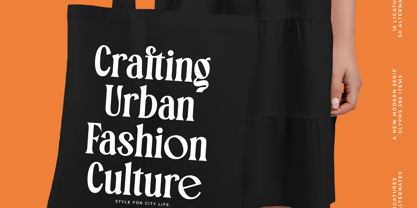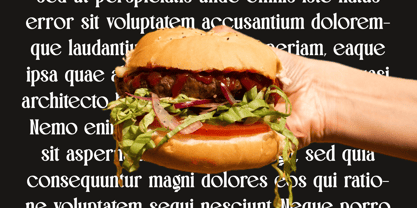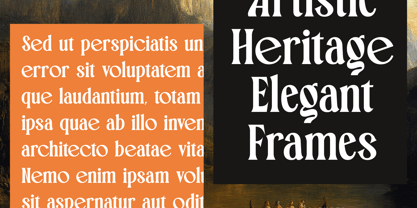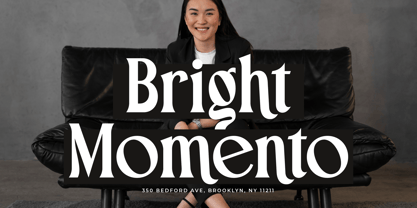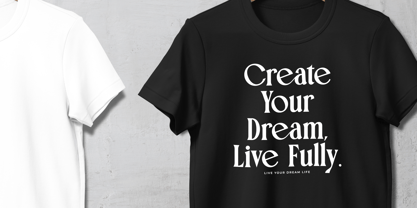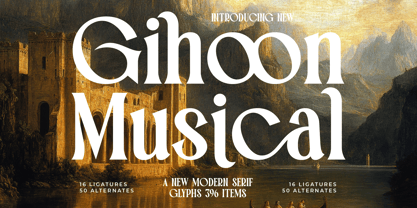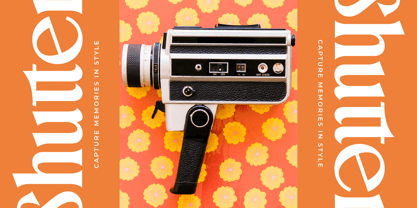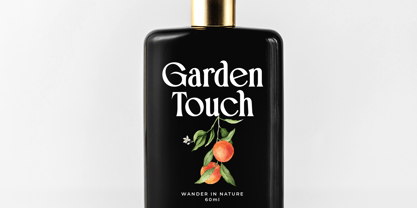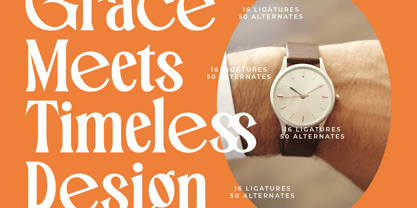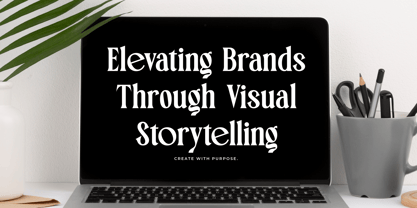
Gihoon Musical
by Timelesstype Studio
The Gihoon Musical Font Family was designed by Heru Utama Putra and published by Timelesstype Studio. Gihoon Musical contains 2 styles and family package options. More about this family
Gihoon Musical - New Modern Serif Font , from Timelesstype, Suitable for any projects such as: logos, branding projects, homeware designs, product packaging, mugs, quotes, posters, shopping bags, t-shirts, book covers, name card, invitation cards, greeting cards, label, photography, watermark, special events, and all your other luxury and beautiful projects that need a Luxury Serif taste.